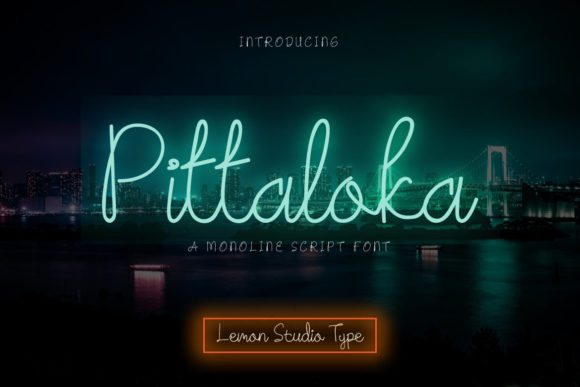
Journey into the world of Pittaloka - a captivating handwritten font that weaves a tapestry of elegance and uniqueness. Its graceful curves, reminiscent of a gentle breeze, will effortlessly elevate your creative projects to new heights, leaving an unforgettable impression on the digital landscape.
Unleash the power of Pittaloka and watch as your words take on a life of their own, captivating audiences with their sophistication and allure. Whether you're crafting beautiful product packaging, designing a sleek branding project, or captivating social media posts, Pittaloka's versatility knows no bounds.
With Pittaloka, you can effortlessly add a touch of luxury and sophistication to your magazine covers, making them stand out on newsstands and online. The font's elegant lines will add a timeless charm to your wedding invitations, imbuing them with a sense of romance and exclusivity.
But Pittaloka's magic extends beyond aesthetics. As a web reader's font, it's meticulously crafted to enhance readability and comprehension, ensuring that your words flow effortlessly across screens, captivating readers with their clarity and beauty.
Immerse yourself in the beauty of Pittaloka and unlock a world of creative possibilities. Its elegant curves and captivating style will transform your designs into works of art, leaving a lasting impression on your audience. Embrace the allure of Pittaloka and elevate your projects to new heights of brilliance.